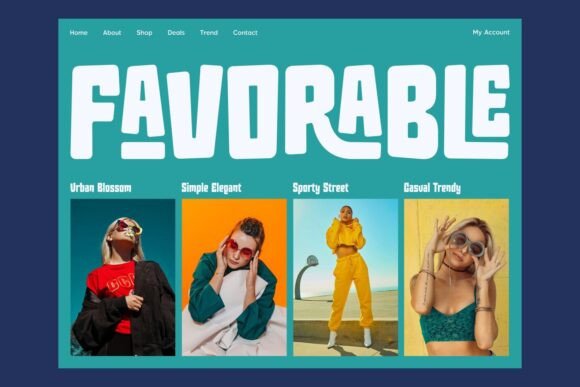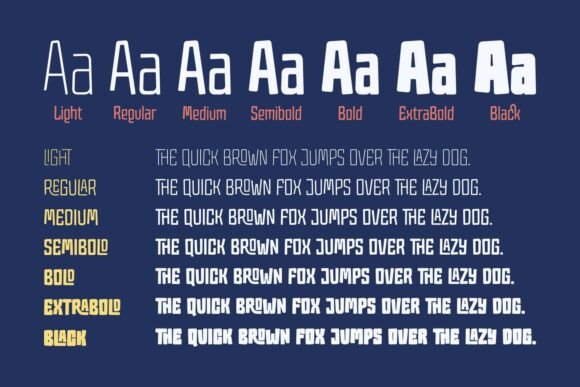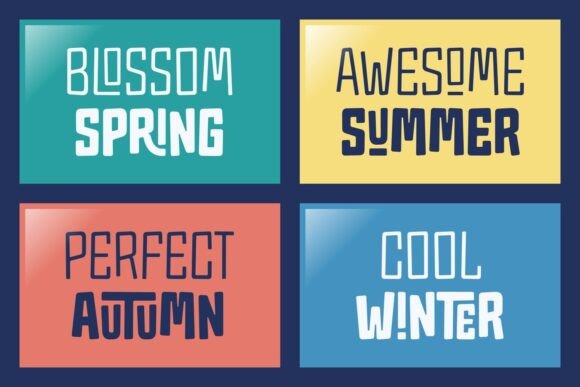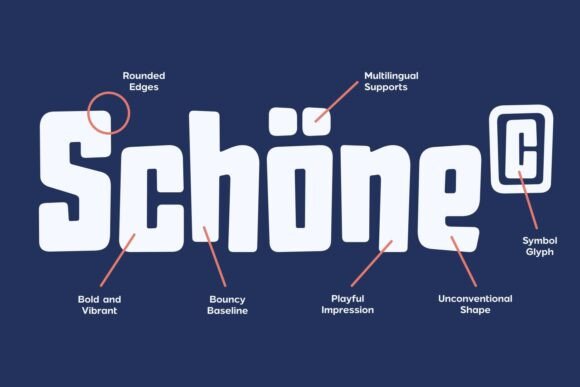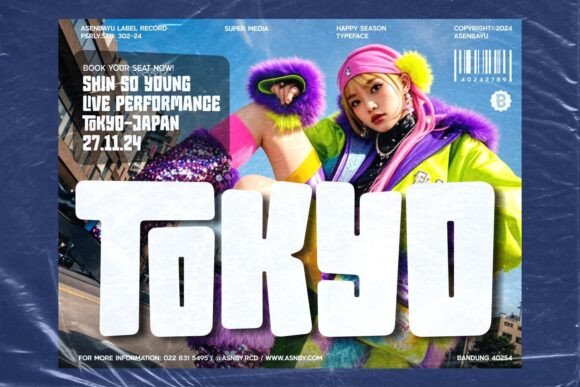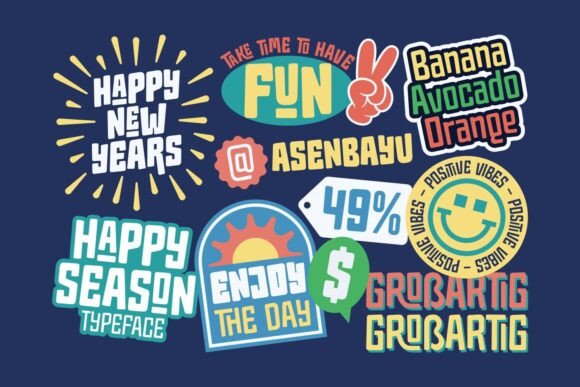
Introducing Happy Season Font: The Perfect Blend of Modern Playfulness and Friendly Approachability
Are you tired of using the same old fonts for your designs? Look no further! Happy Season Font is here to revolutionize your creative projects with its modern, playful, and sans-serif charm. This font family consists of 7 styles that are sure to bring a fresh and lively touch to your work. In this article, we’ll dive into the features and benefits of Happy Season Font, and explore how it can elevate your designs to the next level.
Energetic and Lively Design
Happy Season Font boasts an energetic and lively design that exudes fun and approachability. Its rounded edges give it a friendly and welcoming look, making it perfect for designs that require a casual and laid-back feel. The font’s modern and playful aesthetic makes it an excellent choice for designers who want to add a touch of whimsy to their work.
One of the standout features of Happy Season Font is its versatility. With 7 styles to choose from, you can use it for a wide range of design projects, including:
- Trendy packaging label designs
- Unique desired logos
- Headlines and titles
- Poster designs
- Fashion designs
Whether you’re working on a branding project, creating eye-catching posters, or designing stylish packaging, Happy Season Font is the perfect choice.
Key Features of Happy Season Font
So, what makes Happy Season Font so special? Here are some of its key features:
- Modern and playful sans-serif design
- 7 styles to choose from
- Rounded edges for a friendly and welcoming look
- Energetic and lively feel
- Suitable for a wide range of design projects
Why Choose Happy Season Font?
With so many fonts available, why should you choose Happy Season Font? Here are just a few reasons:
- Unique and eye-catching: Happy Season Font is sure to grab attention with its modern and playful design.
- Versatile: With 7 styles to choose from, you can use Happy Season Font for a wide range of design projects.
- Easy to read: The font’s clean and simple design makes it easy to read, even at small sizes.
- Time-saving: With Happy Season Font, you can create professional-looking designs in no time.
Tips for Using Happy Season Font
Here are some tips for getting the most out of Happy Season Font:
- Pair it with bold colors: Happy Season Font looks amazing with bold and bright colors. Try pairing it with a vibrant color scheme to create a fun and playful design.
- Experiment with different styles: With 7 styles to choose from, don’t be afraid to experiment and find the one that works best for your design.
- Use it for headlines: Happy Season Font is perfect for headlines and titles. Use it to add a touch of whimsy to your text.
In conclusion, Happy Season Font is a modern, playful, and sans-serif font family that’s perfect for designers and crafters who want to add a touch of fun and approachability to their work. With its energetic and lively design, versatility, and ease of use, Happy Season Font is sure to become a staple in your design toolkit. So why wait? Download Happy Season Font today and start creating amazing designs!